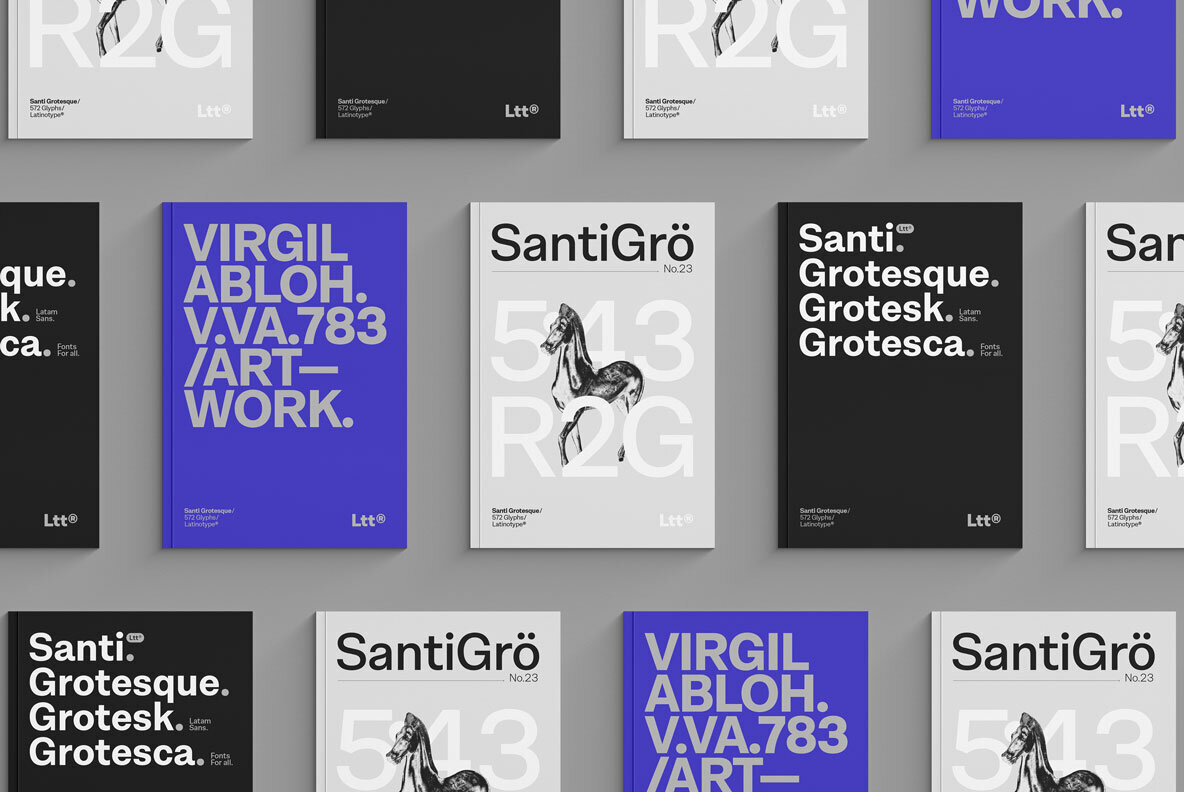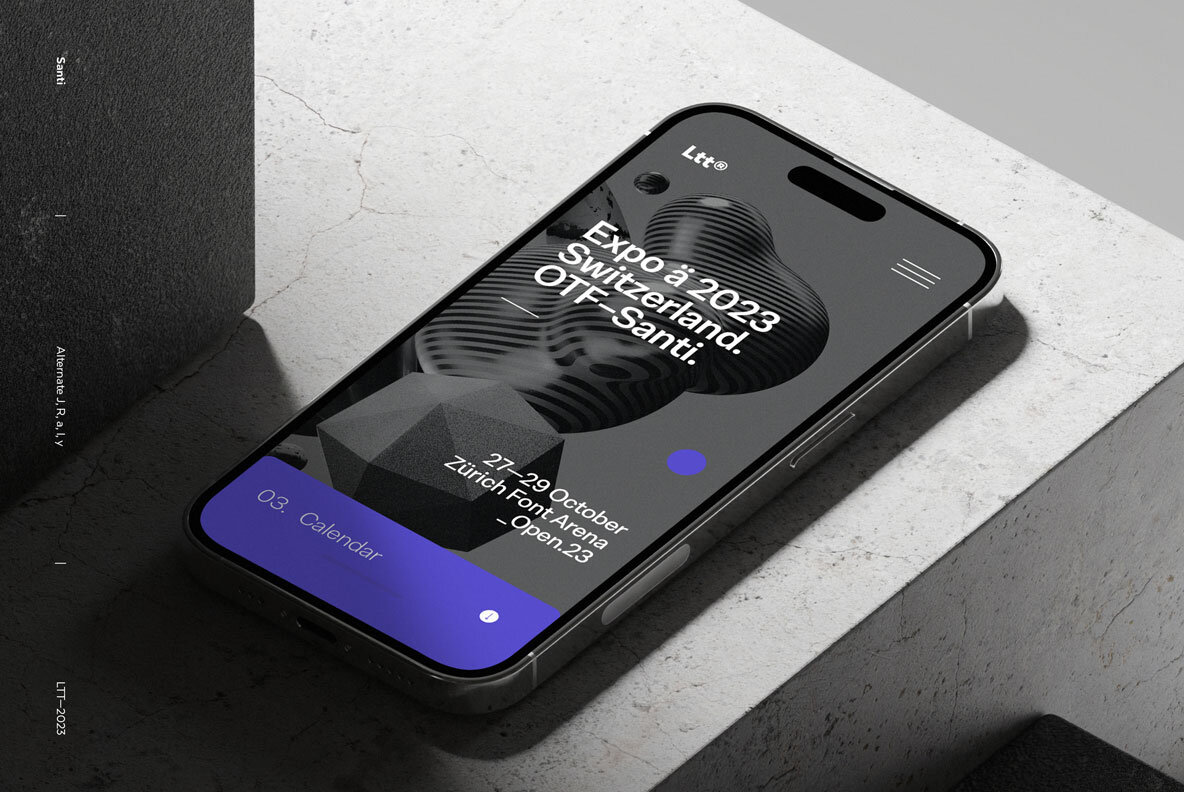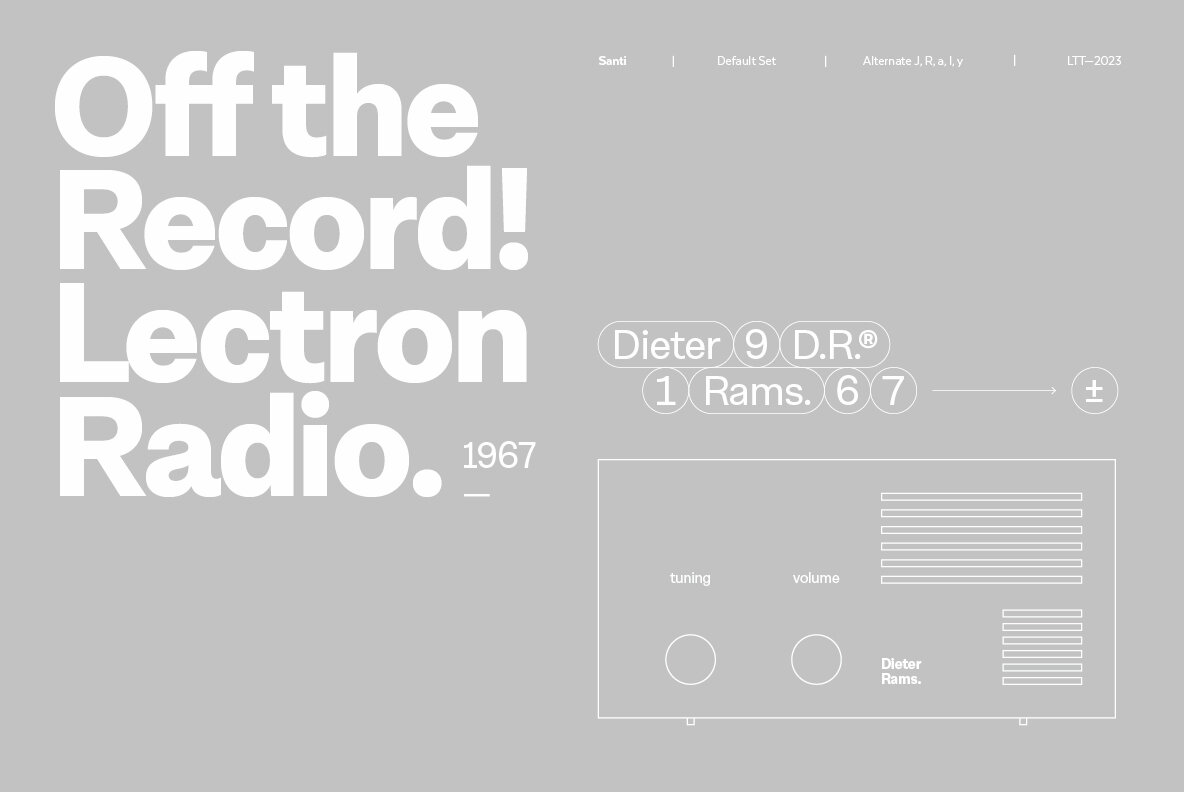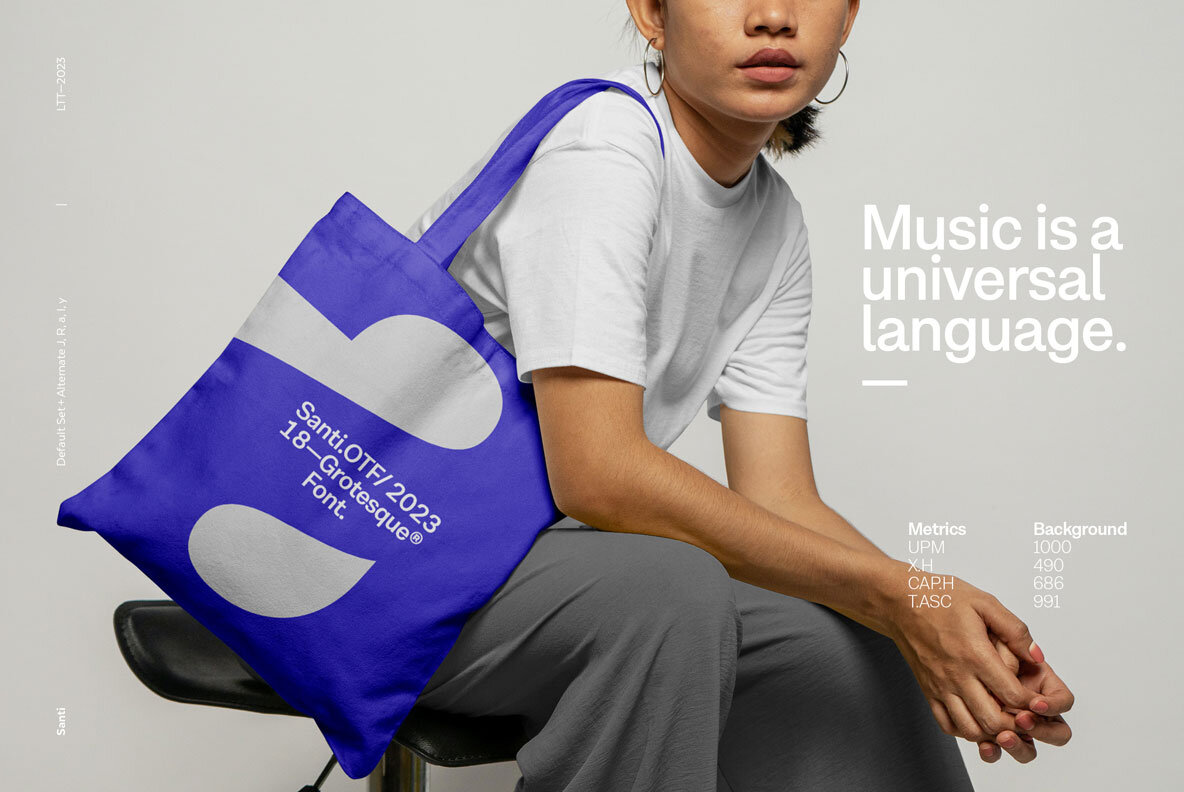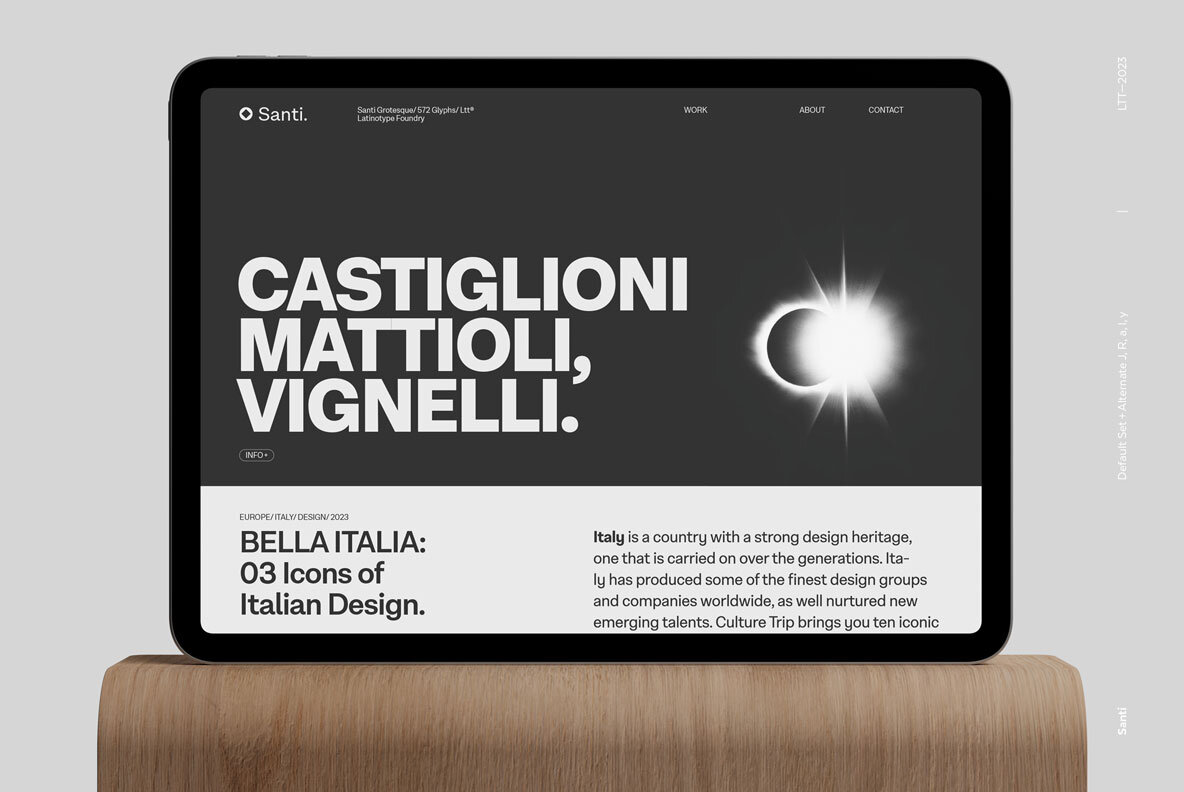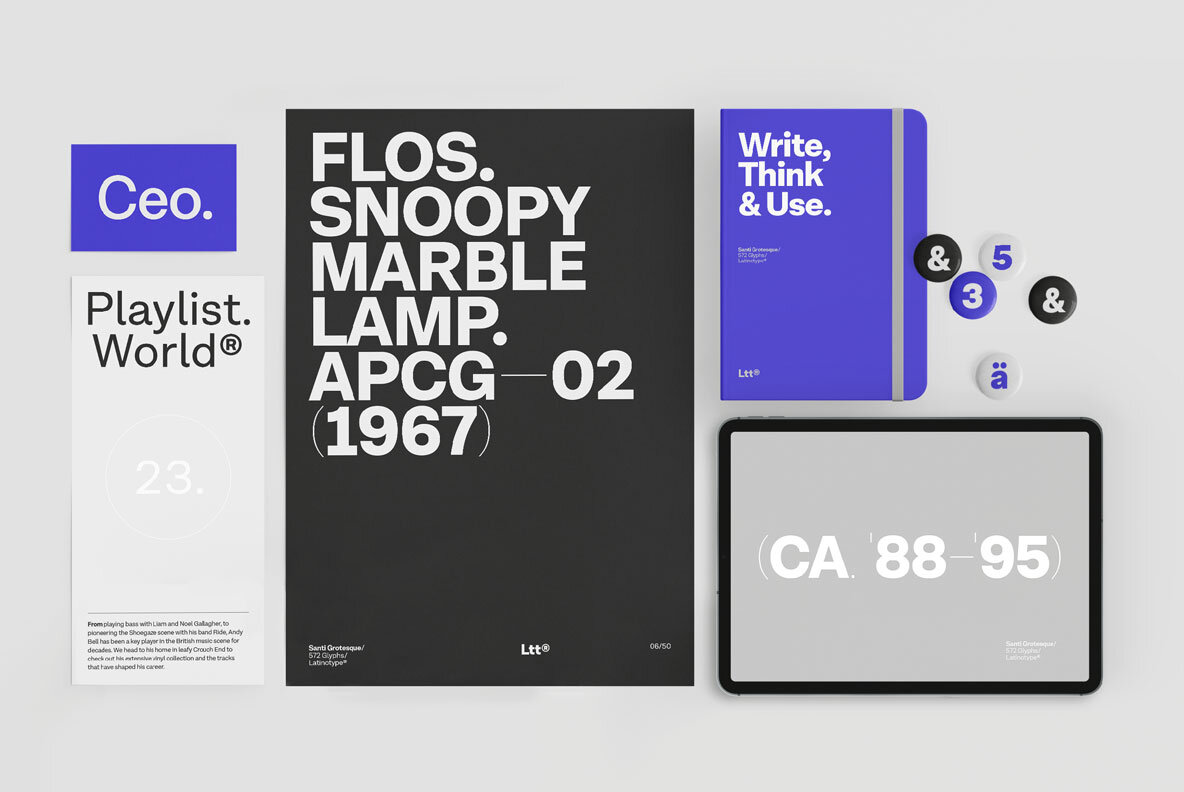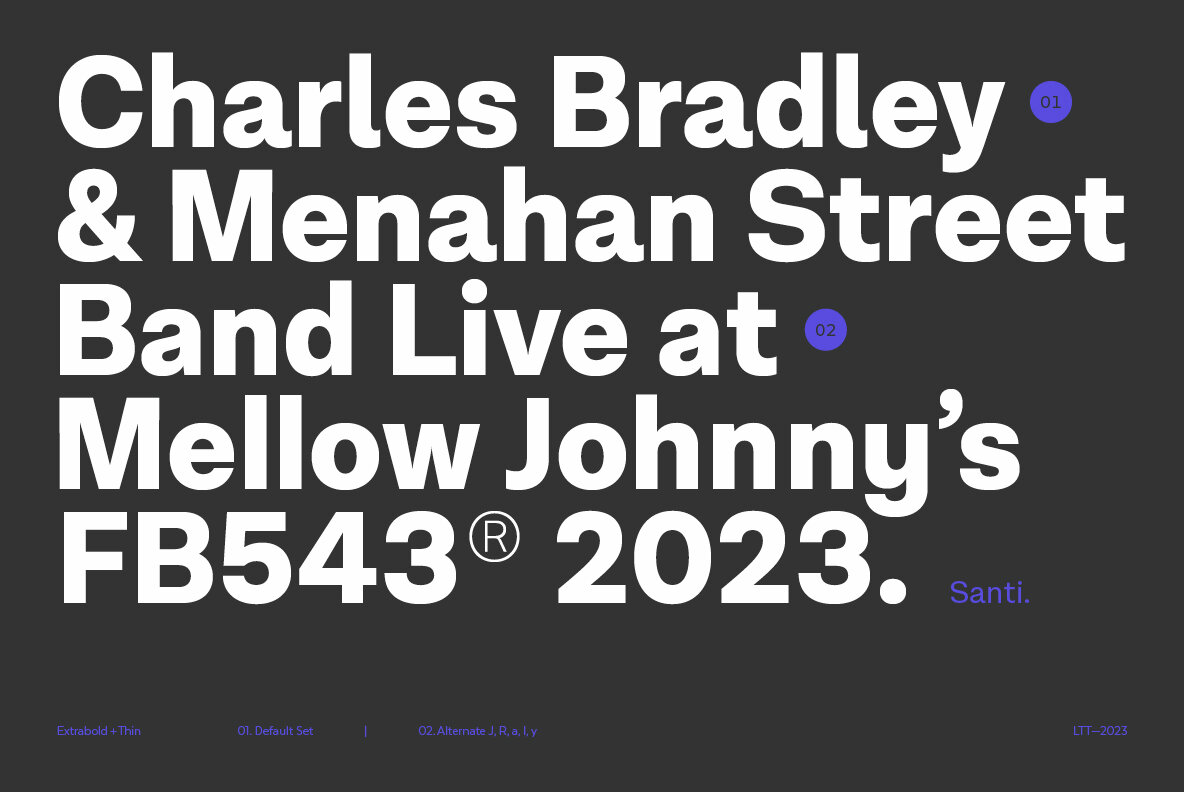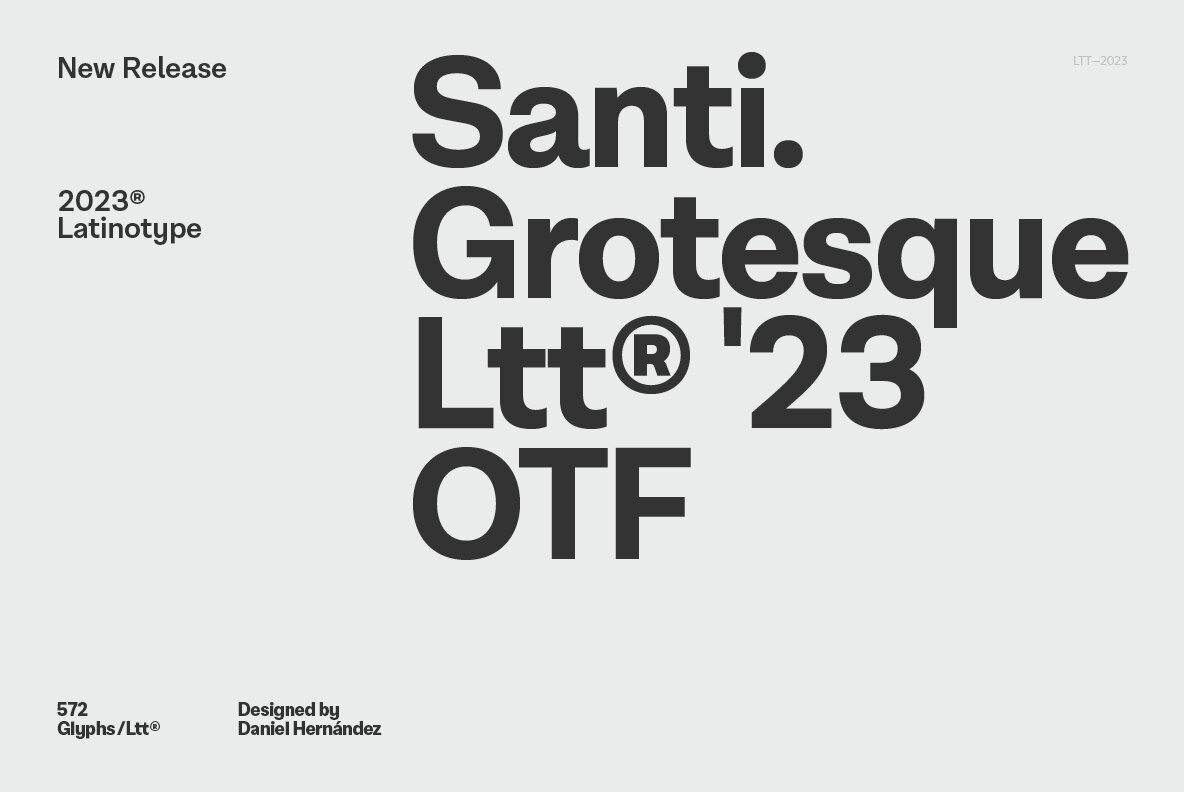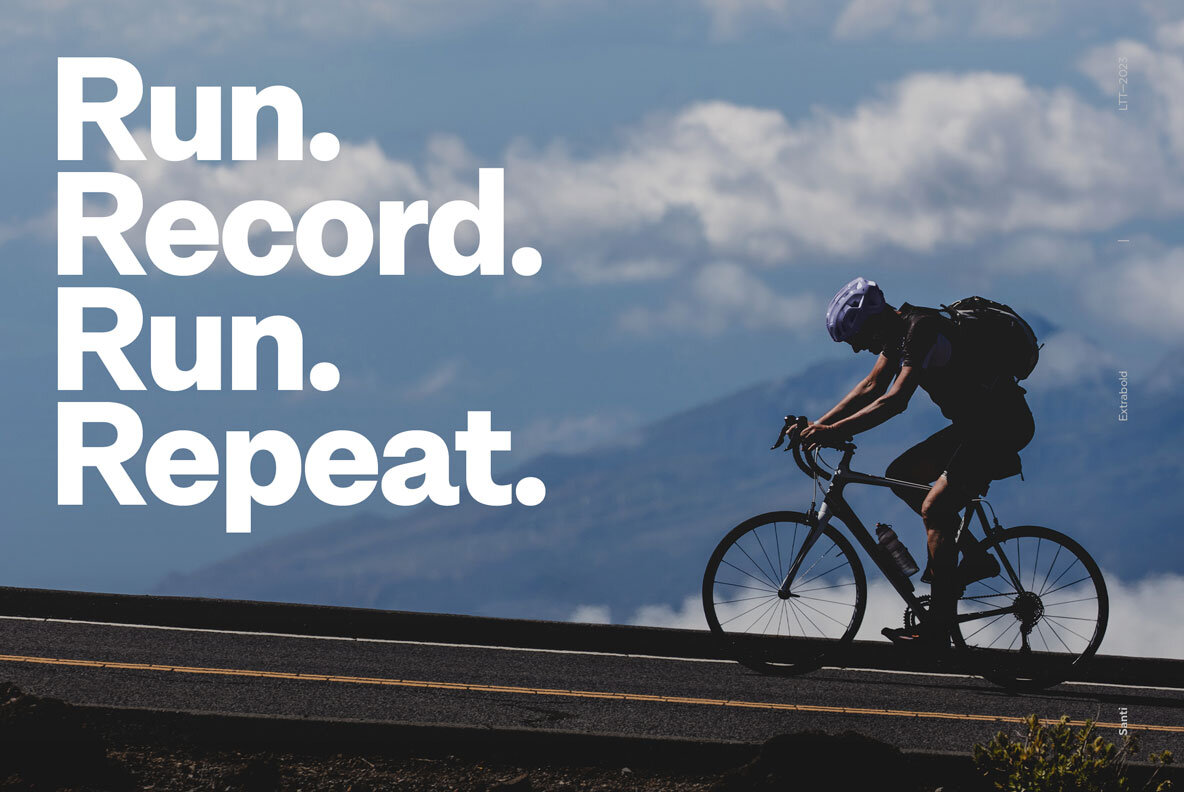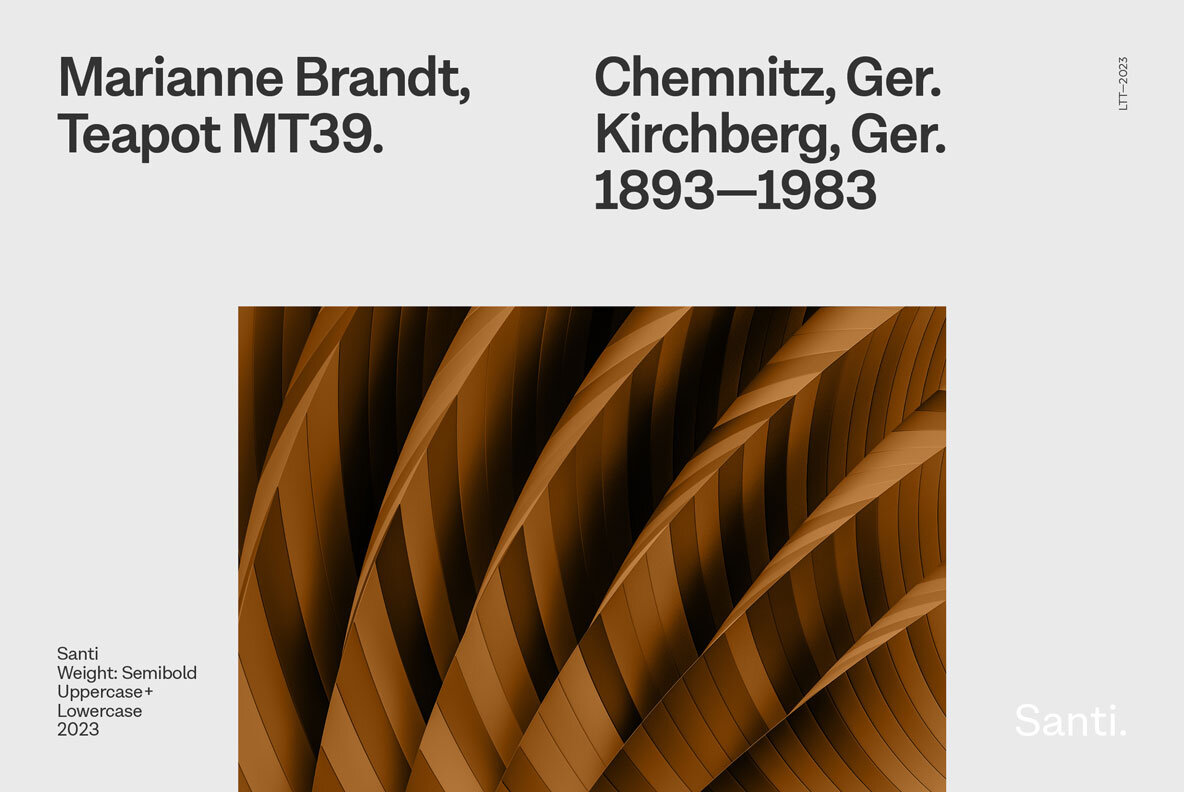
Santi Font
Santi, our new grotesque font offers 9 weight variants along with their corresponding italics. This typeface perfectly blends a classic character with sublime modern touches, creating a striking aesthetic without resorting to fanfare. Santi becomes thus an essential resource for a wide range of projects thanks to its amazing versatility and functionality. Santi's versatility transcends current trends and gives it a timeless quality. This typeface blends effortlessly into classic or contemporary projects, offering a perfect balance between the familiar and the innovative. Its functionality extends to every corner of the design, from impactful headlines to readable body copy.